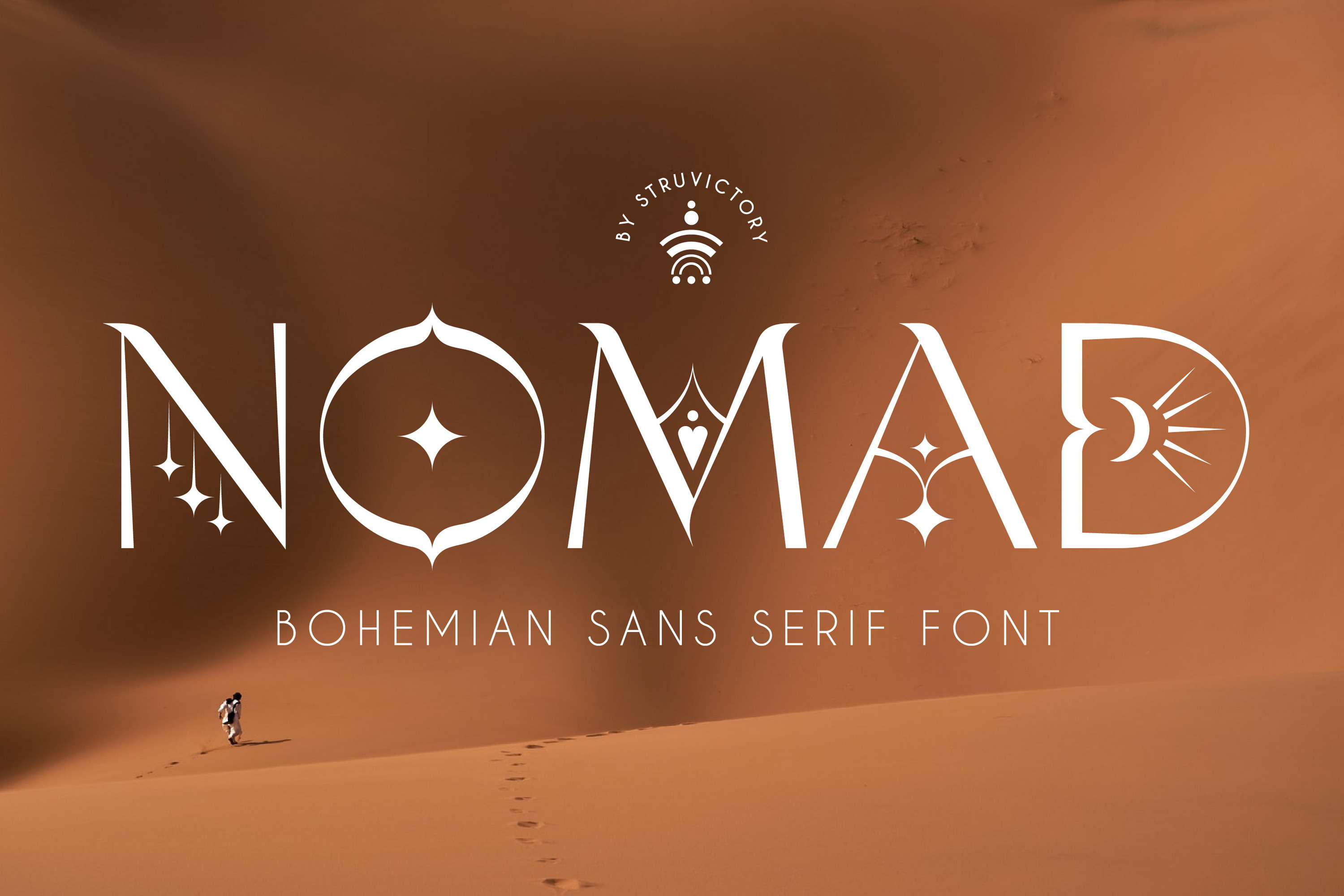
Nomad - Bohemian Sans Serif Font
NOMAD is a modern sans serif font with bohemian motives. The font is created in classic proportions and decorated with celestial and boho decor. NOMAD is represented by sans serif lowercase and ornate uppercase. The font is suitable for the design on the theme of astrology, mysticism, spirituality, witchcraft, magic, esotericism.
I really love the design, and it is perfectly aligned with my astrology offers, I just wish there was a slightly bolder version as the thin lines can be lost in my designs and it doesn't stand out as much as it could.